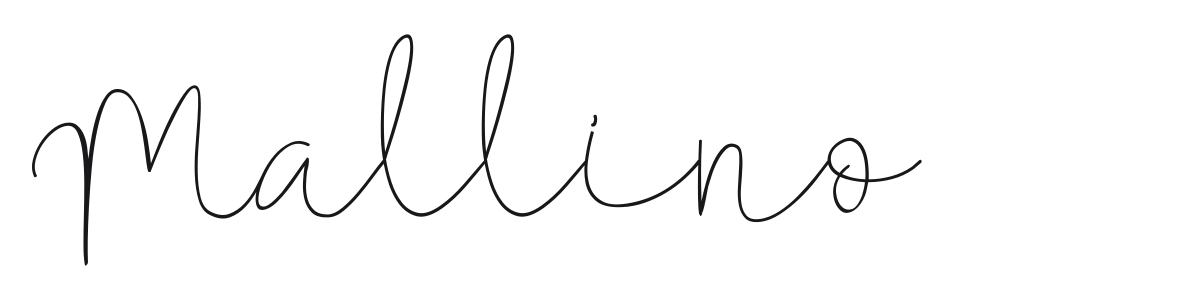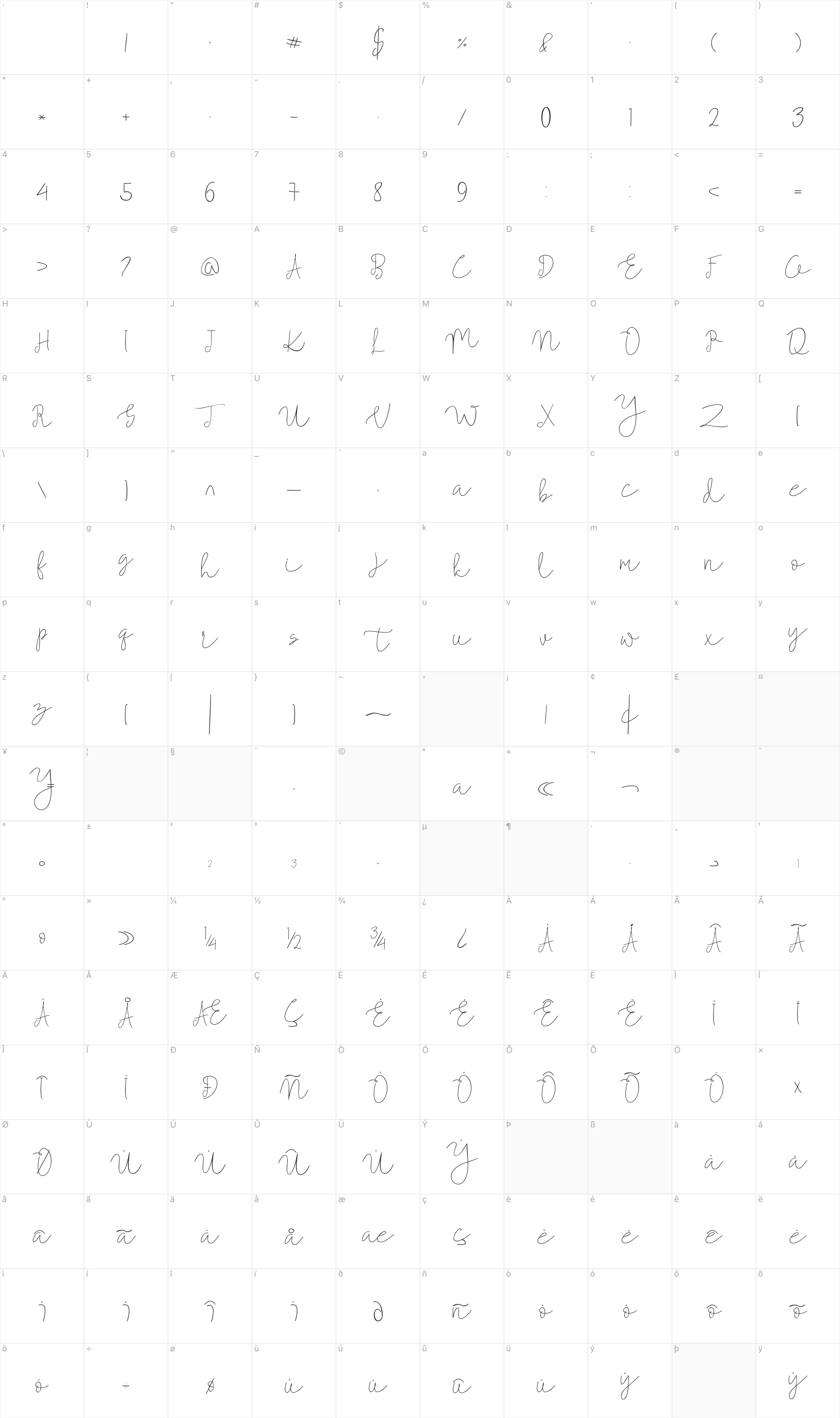
Mallino
Mallino is a light, monoline script from OldStudioo with the flowing, unhurried quality of a practiced signature. The thin strokes stay consistent throughout, giving it a feminine elegance that feels personal rather than fussy. A natural choice for wedding stationery, editorial accents, and branding where you want something delicate and handwritten without losing legibility.